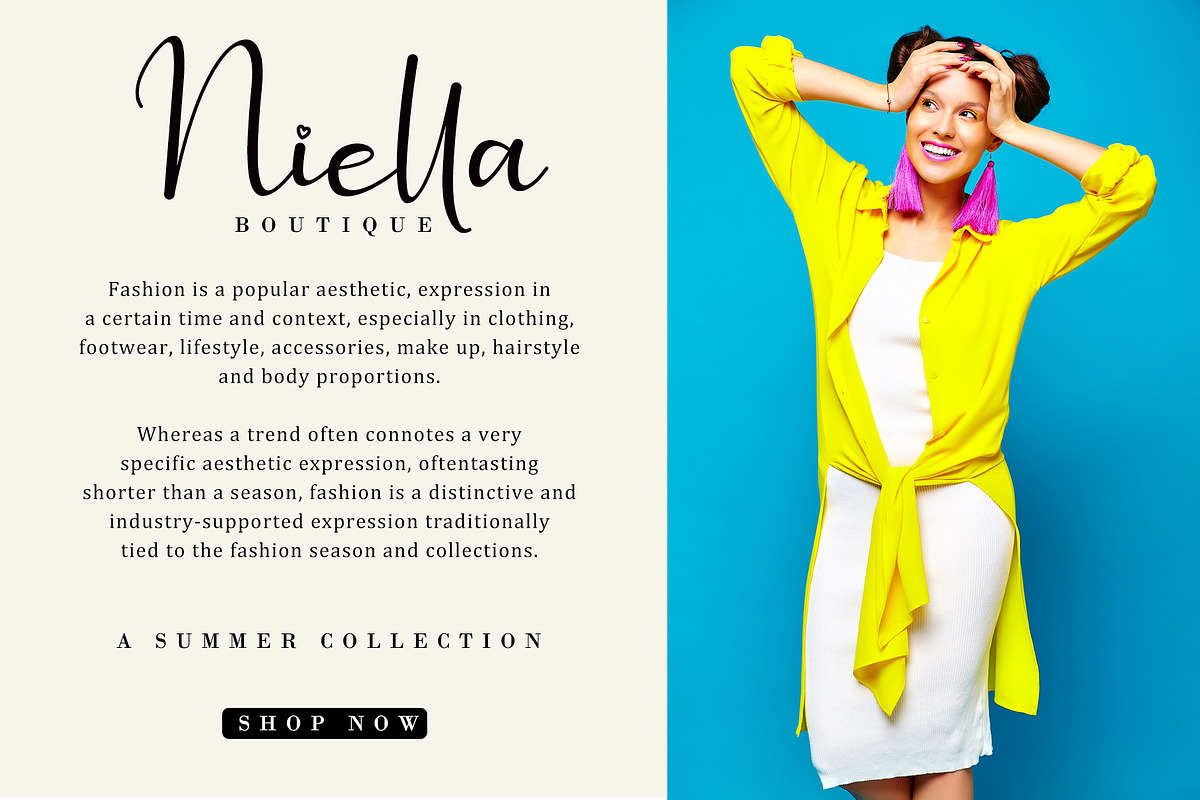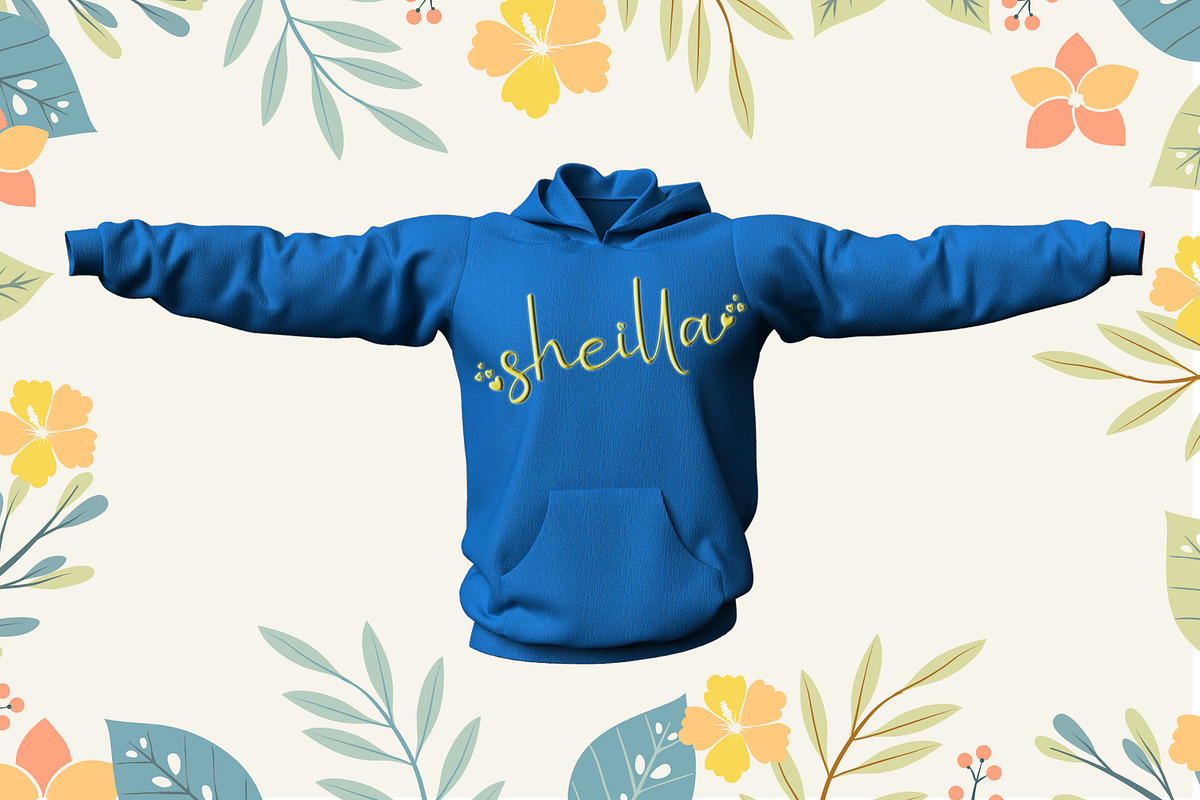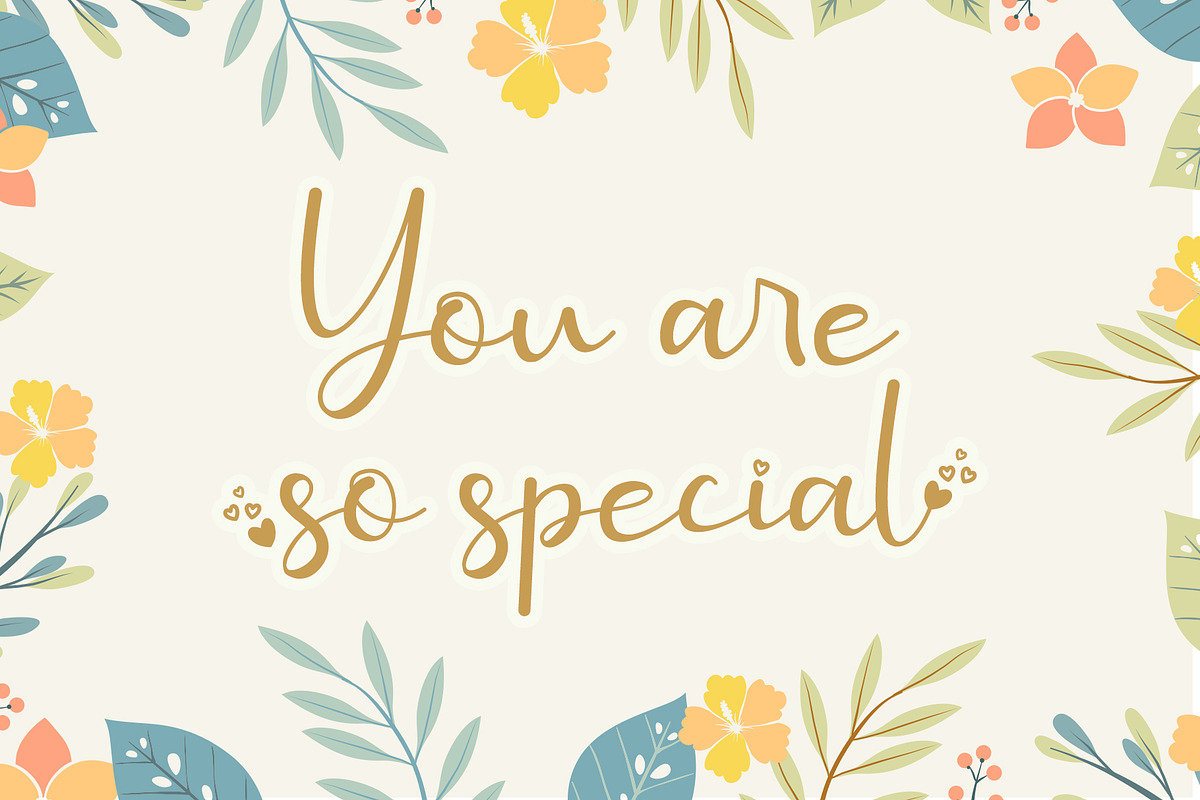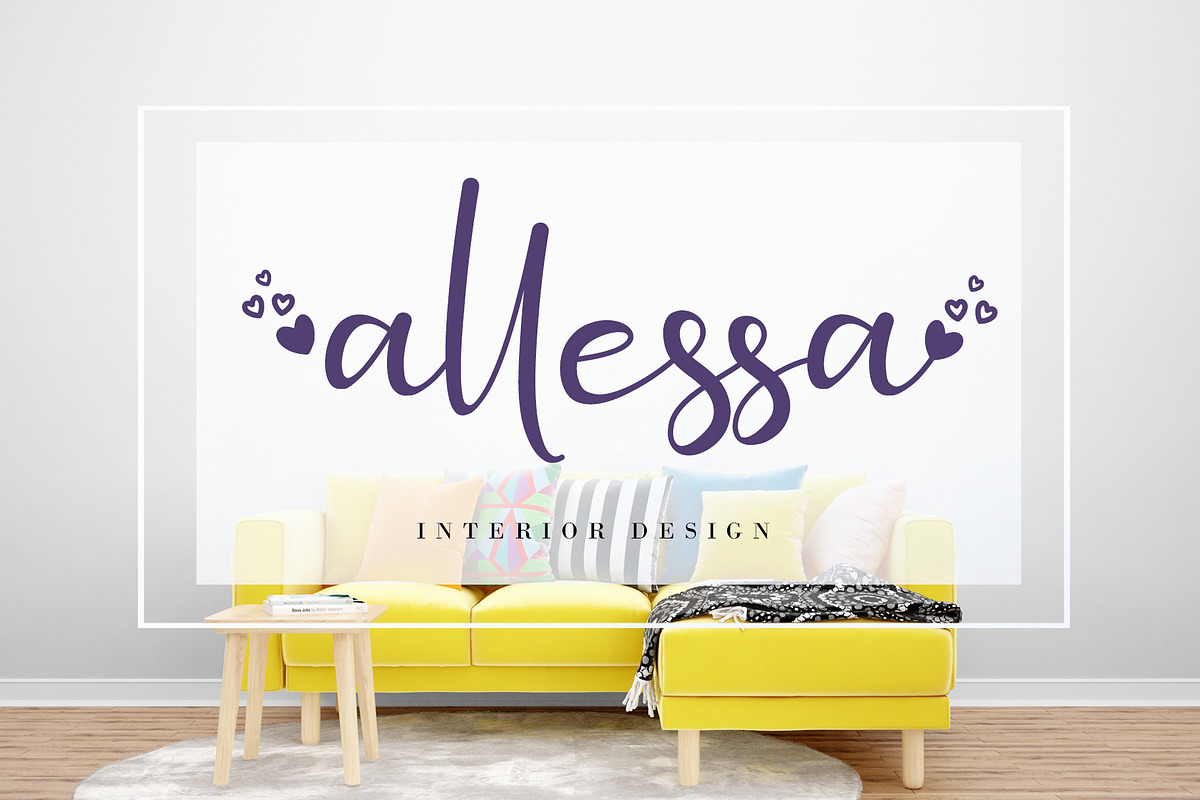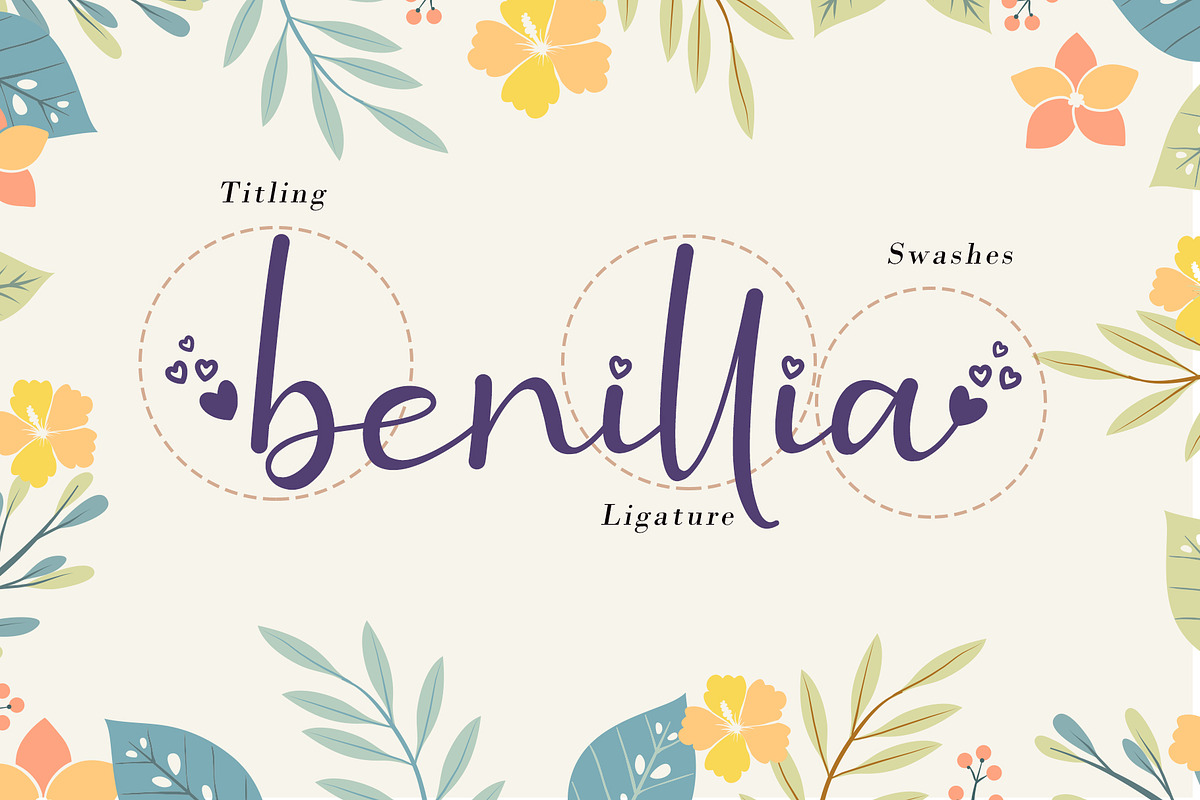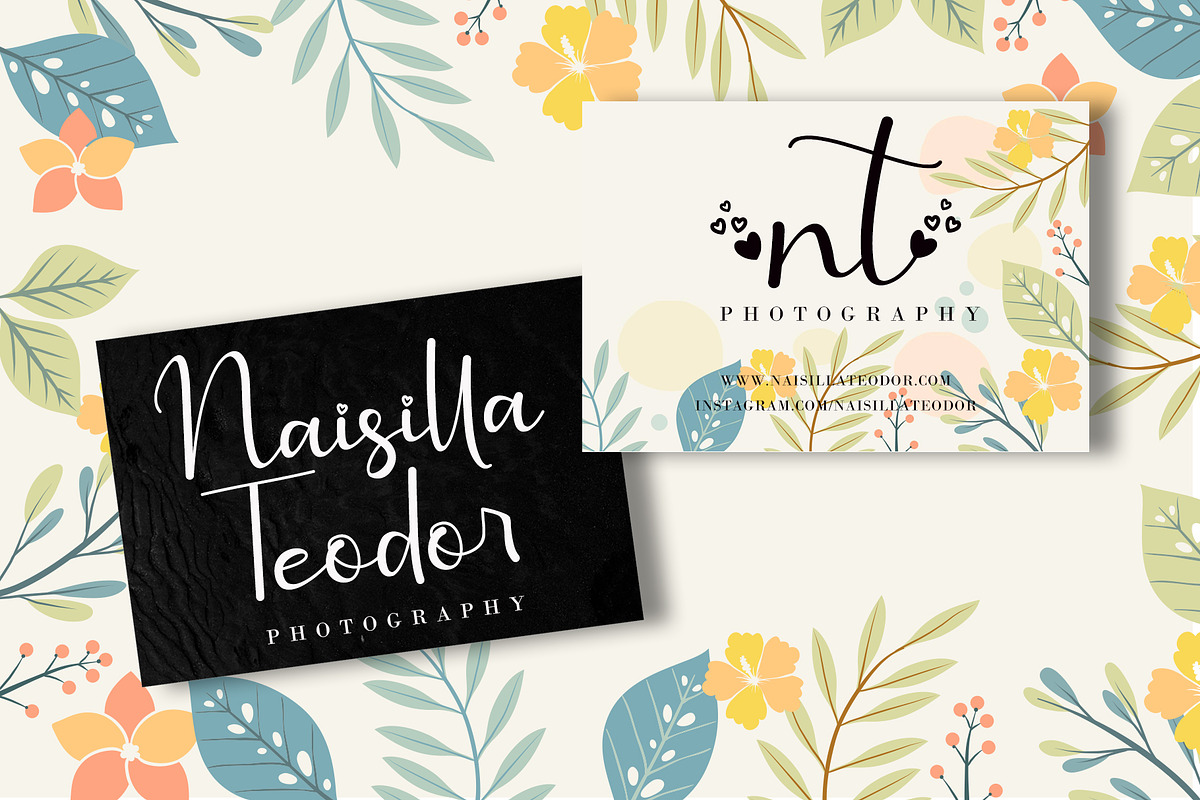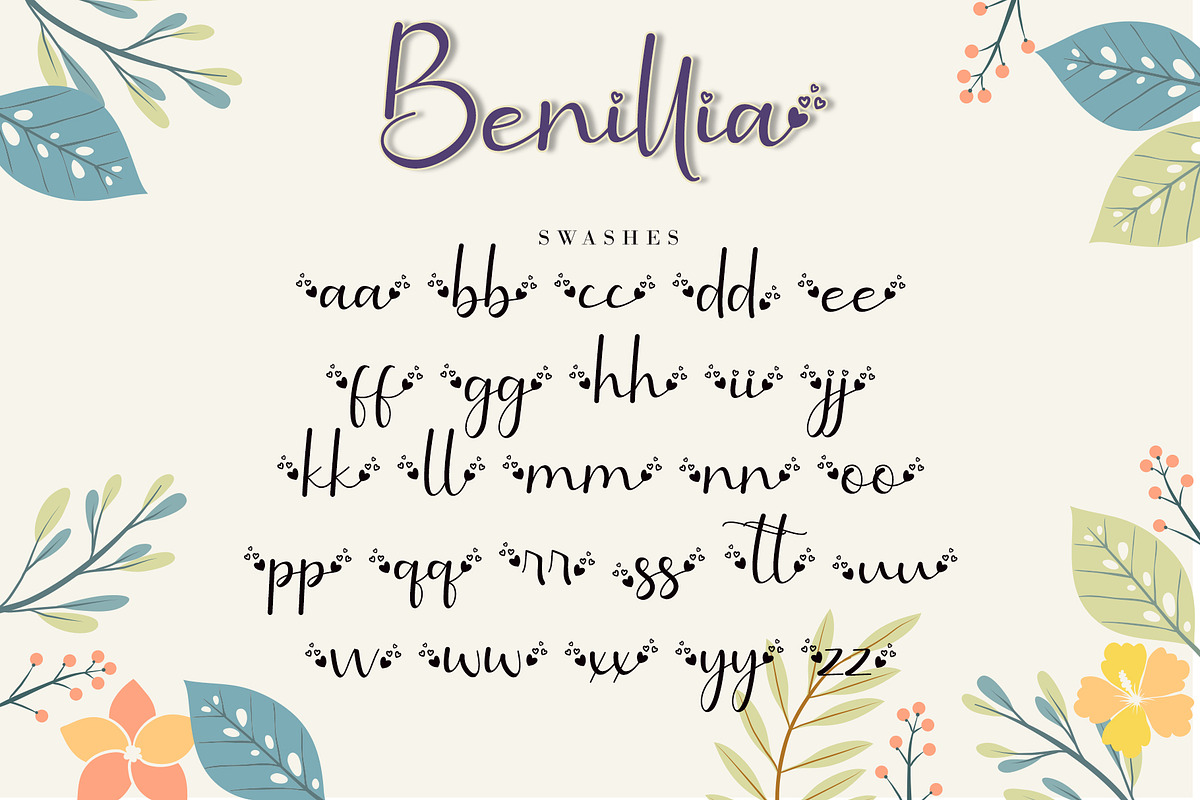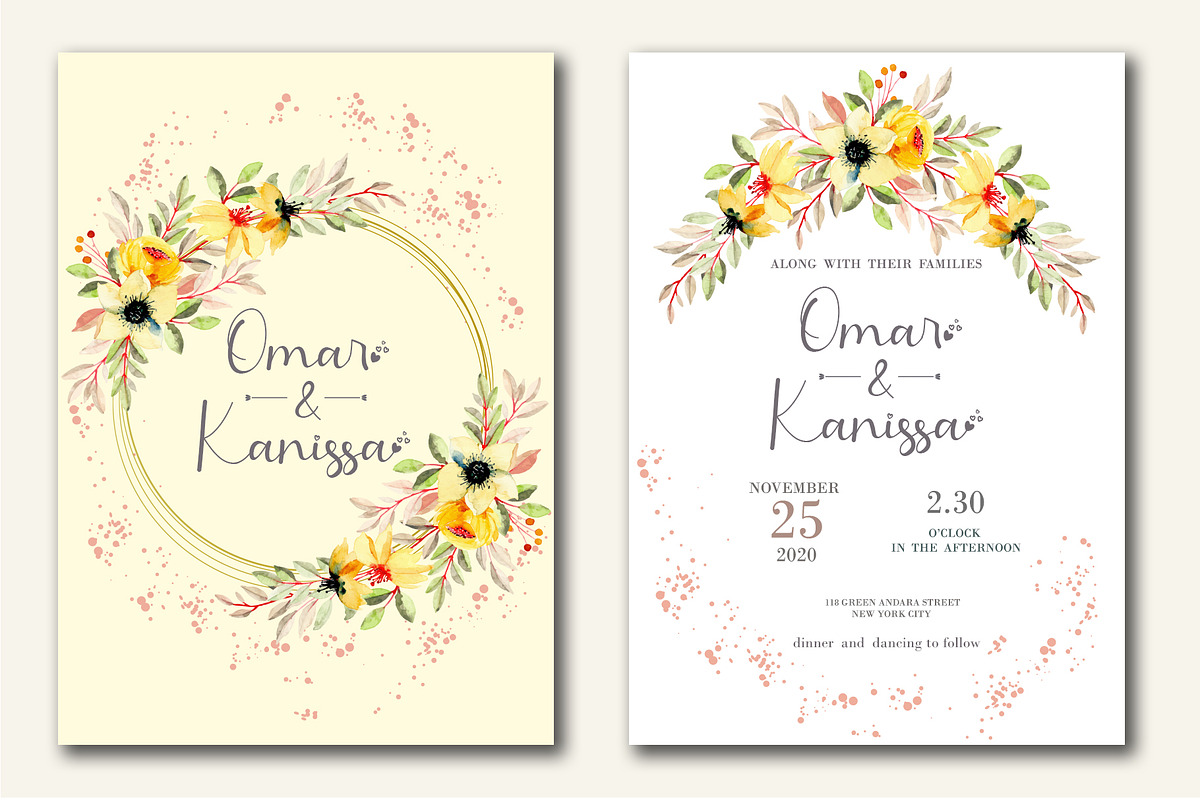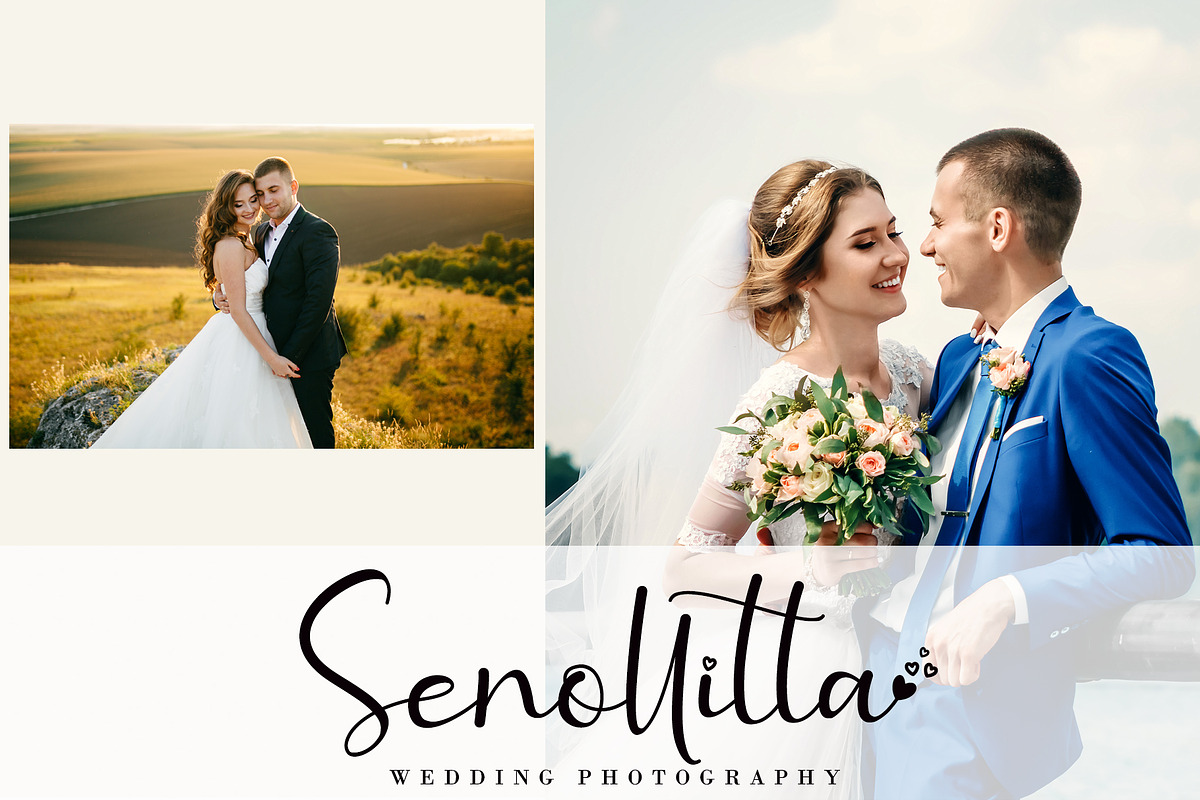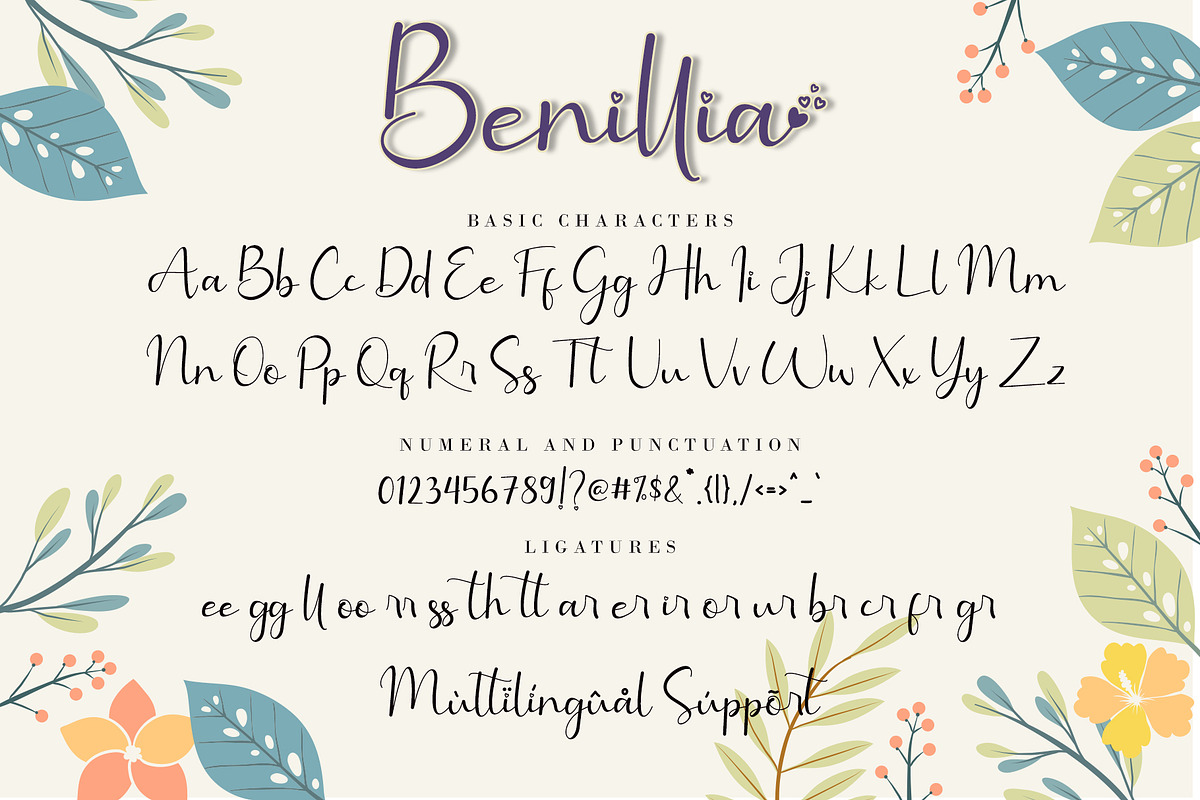
Benillia
Benillia is a sweet and delicate handwritten font. It looks stunning on wedding invitations, thank you cards, quotes, greeting cards, logos, business cards, and every other design which needs a handwritten touch. It features a varying baseline, smooth lines, and gorgeous glyphs.
- Benillia Features :
- Support multilingual; ä ö ü Ä Ö Ü ß ¿ ¡
- (a-z) titling, (a-z) swashes, ligatures